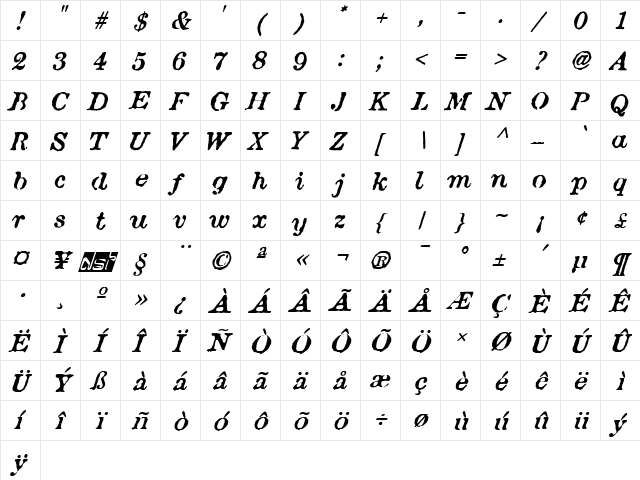
AtticAntique Regular
Design Context for AtticAntique Typeface
AtticAntique has the warm character of retro typography — evoking diners, record sleeves, and the golden age of print advertising.
Font Pairing: Combine AtticAntique with a simple slab or neutral sans — period-accurate companions reinforce the vintage feel without competing for attention.
Pro Tip: Use AtticAntique for headlines and pull quotes rather than body copy — its personality is best appreciated in short, focused bursts.